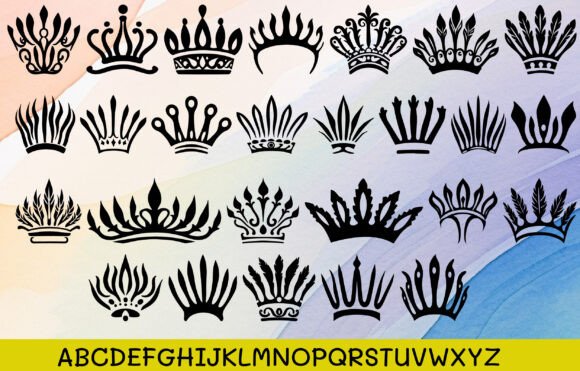
Crown Samoan Tribal Font: Elevate Your Designs with Regal, Cultural Flair
Are you a designer or crafter looking to add a touch of cultural sophistication and regality to your creative projects? Look no further than the Crown Samoan Tribal Font, a unique and stunning collection of tribal-inspired dingbats fonts. This exciting font pack features 26 star-inspired crown designs, each carefully crafted to correspond to a letter of the alphabet, from A to Z.
What is the Crown Samoan Tribal Font?
The Crown Samoan Tribal Font is a specially designed font collection that combines traditional Samoan tribal art with modern typography. This distinctive font pack is perfect for anyone seeking to infuse their designs with a sense of cultural heritage and luxury. Whether you’re working on a branding project, crafting a logo, or simply looking for a creative way to express yourself, this font collection offers endless possibilities.
Key Features of the Crown Samoan Tribal Font
- 26 Unique Crown Designs: Each letter of the alphabet, from A to Z, is represented by a distinctive star-inspired crown design, offering a wide range of creative possibilities.
- Cultural Significance: The Samoan tribal designs are rich in cultural heritage, adding a unique and meaningful element to your designs.
- Regal and Sophisticated: The crown motifs evoke a sense of luxury, power, and sophistication, perfect for projects that require a touch of elegance.
Uses for the Crown Samoan Tribal Font
The Crown Samoan Tribal Font is incredibly versatile, making it suitable for a wide range of creative projects. Here are just a few ideas to get you started:
- Branding and Logo Design: Use the font to create a distinctive and memorable logo that reflects your brand’s values and personality.
- Crafting and Scrapbooking: Add a touch of cultural flair to your handmade crafts, such as cards, invitations, and scrapbook pages.
- Graphic Design: Incorporate the font into your graphic designs, such as posters, flyers, and brochures, to add visual interest and depth.
- Digital Art: Use the font to create stunning digital art pieces, such as illustrations and mixed media compositions.
Tips for Using the Crown Samoan Tribal Font
To get the most out of the Crown Samoan Tribal Font, here are a few tips to keep in mind:
- Experiment with Color: The font looks great in bold, bright colors, but don’t be afraid to experiment with different hues and gradients to add depth and interest.
- Mix and Match: Combine the crown designs with other fonts and graphics to create unique and eye-catching compositions.
- Pay Attention to Scale: Make sure to adjust the size of the font to suit your design needs, taking care not to distort or pixelate the intricate tribal designs.
The Crown Samoan Tribal Font is a truly unique and inspiring font collection that offers designers and crafters a wealth of creative possibilities. With its 26 star-inspired crown designs, OTF and TTF file formats, and rich cultural heritage, this font pack is perfect for anyone seeking to add a touch of regality and sophistication to their projects. So why wait? Download the Crown Samoan Tribal Font today and start elevating your designs to new heights!